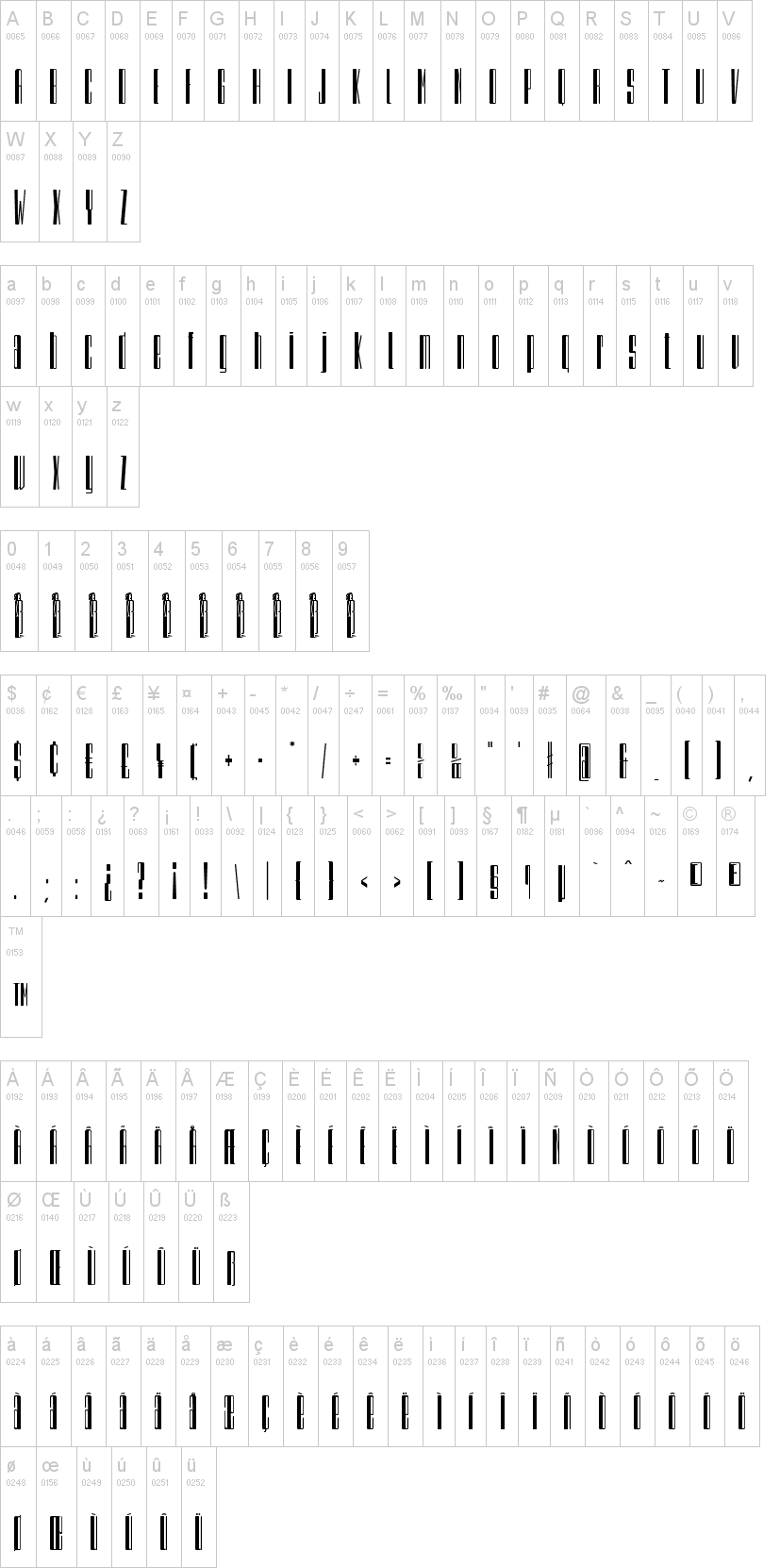
Note of the authorSans-serif style art deco, ultra-condensed, with high contrast between antlers and rounded at the corners. Font display to save space in long, or advertising pieces which seeks a modernist style titles.